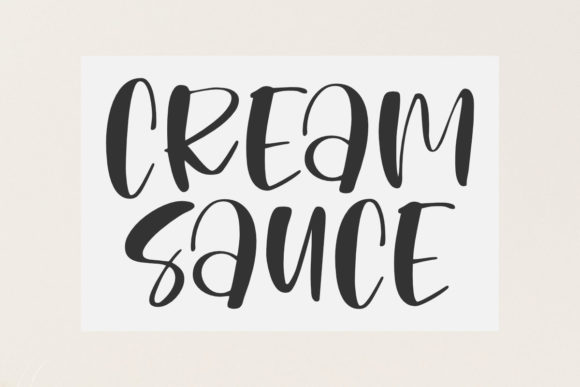
Cream Sauce Font: The Perfect Addition to Your Design Arsenal
Are you tired of using the same old fonts in your designs? Look no further than the Cream Sauce font, a relaxed and casual handwritten font that’s sure to add a touch of personality to your projects. With its natural and unique style, Cream Sauce is incredibly versatile and can be used in a wide range of designs, from rustic and vintage-inspired projects to modern and playful ones.
The Characteristics of Cream Sauce Font
Cream Sauce is a handwritten font that’s characterized by its relaxed and casual feel. It’s perfect for designers and crafters who want to add a personal touch to their projects. The font has a natural, organic look that’s reminiscent of handwritten text, making it perfect for designs that require a friendly and approachable tone.
One of the standout features of Cream Sauce is its uniqueness. Unlike other fonts that can look generic and overused, Cream Sauce has a distinctive style that’s sure to make your designs stand out. Its irregularities and imperfections add to its charm, giving it a human touch that’s hard to replicate with more formal fonts.
The Benefits of Using Cream Sauce Font
So why should you choose Cream Sauce for your next design project? For starters, its versatility makes it incredibly easy to use in a wide range of designs. Whether you’re working on a logo, a poster, a website, or a social media graphic, Cream Sauce is sure to fit right in. Its relaxed and casual style makes it perfect for designs that require a friendly and approachable tone, such as:
- Rustic and vintage-inspired projects, such as wedding invitations, packaging, and branding materials
- Modern and playful designs, such as children’s books, games, and apps
- Food and beverage branding, such as restaurant menus, food blogs, and product labels
- Lifestyle and wellness branding, such as yoga studios, gyms, and health food stores
Another benefit of using Cream Sauce is its ability to evoke emotions and create a connection with your audience. The font’s natural and handwritten style makes it feel more personal and relatable, which can be a major advantage when it comes to building a brand identity or creating engaging content.
How to Use Cream Sauce Font in Your Designs
In conclusion, Cream Sauce is a relaxed and casual handwritten font that’s perfect for designers and crafters who want to add a personal touch to their projects. Its natural and unique style makes it incredibly versatile and easy to use in a wide range of designs. Whether you’re working on a rustic and vintage-inspired project or a modern and playful one, Cream Sauce is sure to fit right in. So why not give it a try and see the difference it can make in your designs?